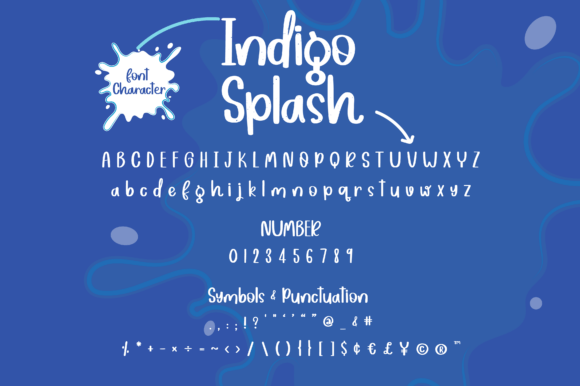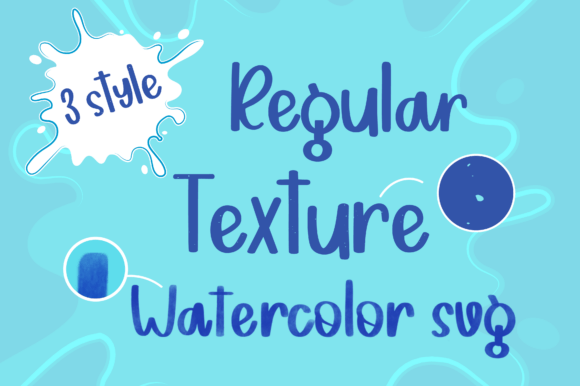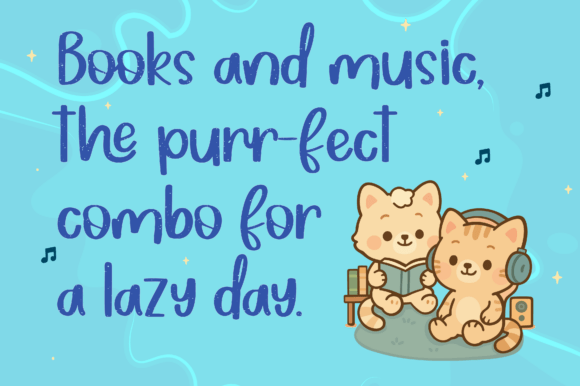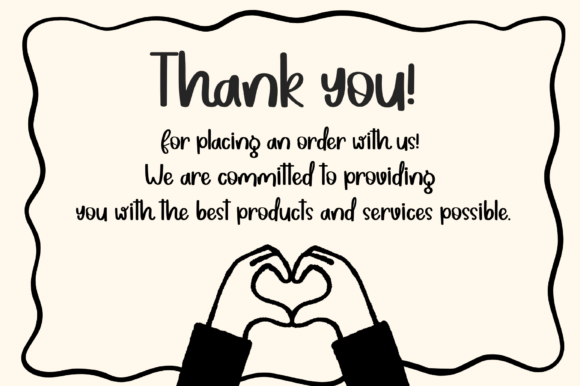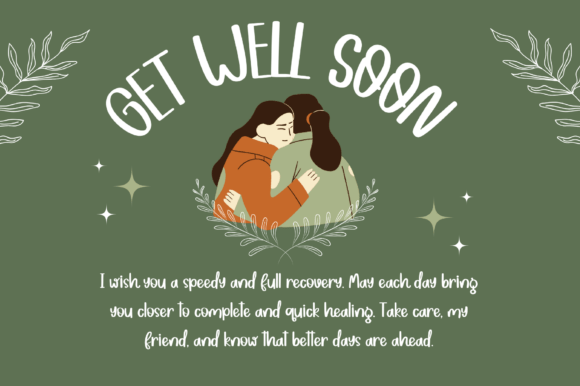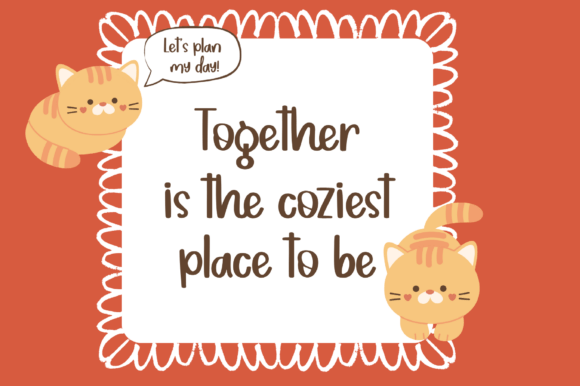
Introduction to Indigosplash Font
Remember that moment when you’re brainstorming ideas for your next creative project and you stumble upon the perfect font? It’s like the missing piece of the puzzle, elevating your entire design from bland to grand. For me, that moment came when I discovered the Indigosplash Font. This delightful, hand-drawn font set has been a game-changer in my design process, adding a personal touch to my projects that I just can’t get enough of.
With its three unique styles – Regular, Textured, and Watercolor SVG – the Indigosplash Font is perfect for any project that needs a little extra oomph. Whether you’re designing stickers, printable quotes, or classroom resources, this font is sure to bring a splash of personality to your work. And the best part? It’s available for free download, making it an invaluable resource for designers of all levels.
Key Features of Indigosplash Font
- Unique, hand-drawn design with a high level of detail, making it perfect for creative projects requiring a distinctive touch.
- Perfect for designers working on creative projects, such as logos, branding materials, and editorial designs, where a unique and eye-catching font is required.
Honest Review: Indigosplash Font
As a designer, I’m always on the lookout for high-quality design resources to elevate my creative projects. The Indigosplash Font caught my attention with its unique, modern aesthetic, and I was excited to put it to the test.
- High-quality design: The Indigosplash Font features crisp, clean lines and a transparent background, making it perfect for projects where subtlety is key.
- Great for creative projects: The font’s modern style makes it an excellent choice for creative projects, from digital art to graphic design.
- Limited character set: The Indigosplash Font may not include as many characters as some other fonts, which could be a limitation for designers working on projects with complex text requirements.
- No bold or italic versions: While the font’s modern style works well in many situations, it may not be suitable for projects where bold or italic text is required.
Overall, the Indigosplash Font is a great addition to any designer’s toolkit. While it may have some limitations, its high-quality design and transparent background make it an excellent choice for creative projects. I’d definitely recommend it to designers looking for a modern, stylish font for their next project.
For a high-quality design, use the Indigosplash Font with a transparent background to create a unique and creative look. Experiment with different font sizes and styles to add visual interest to your design.
The Indigosplash Font is ideal for creative projects, such as brochures, flyers, or social media graphics. It’s also a great design resource for logos, business cards, or other marketing materials. With its high-quality design and free download, the Indigosplash Font is a must-have for any designer or creative professional.